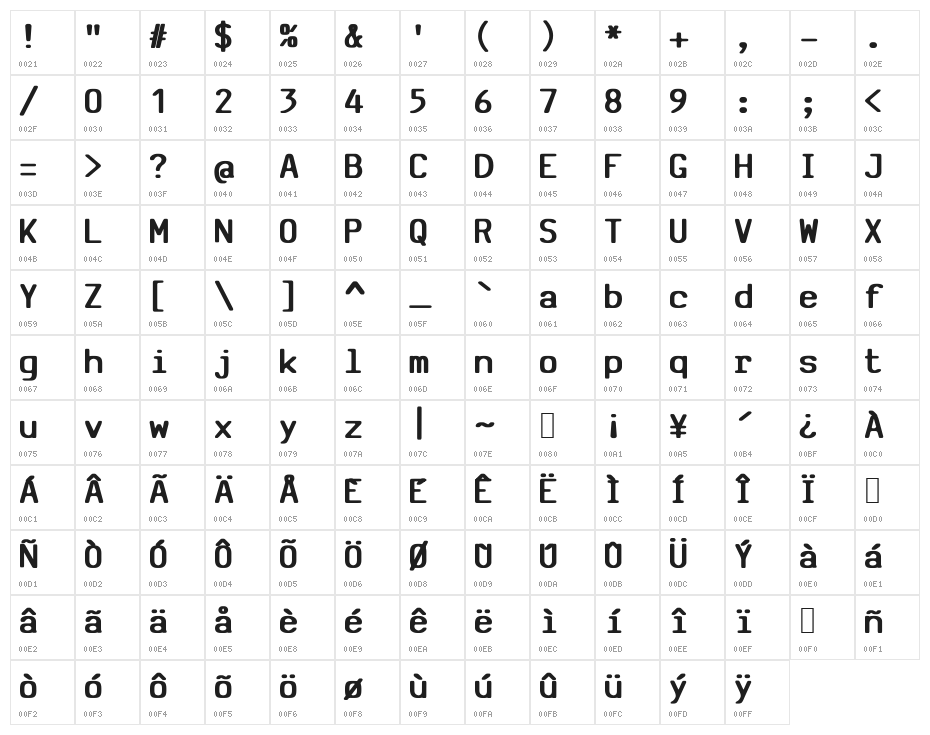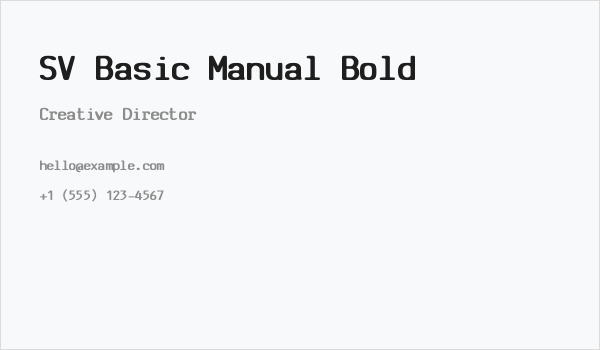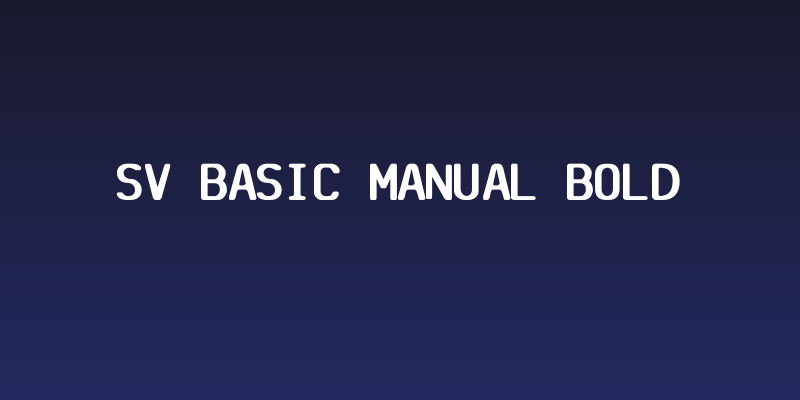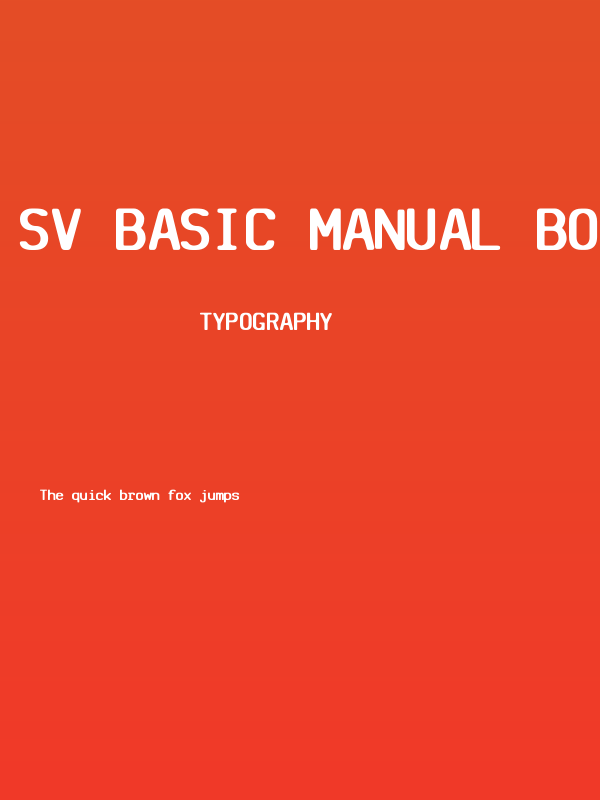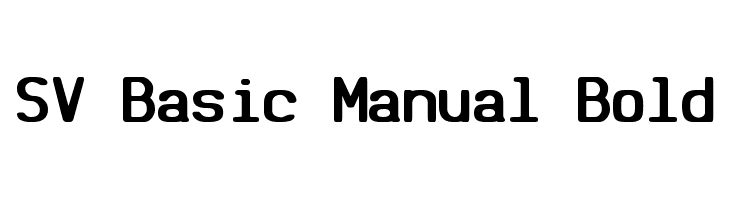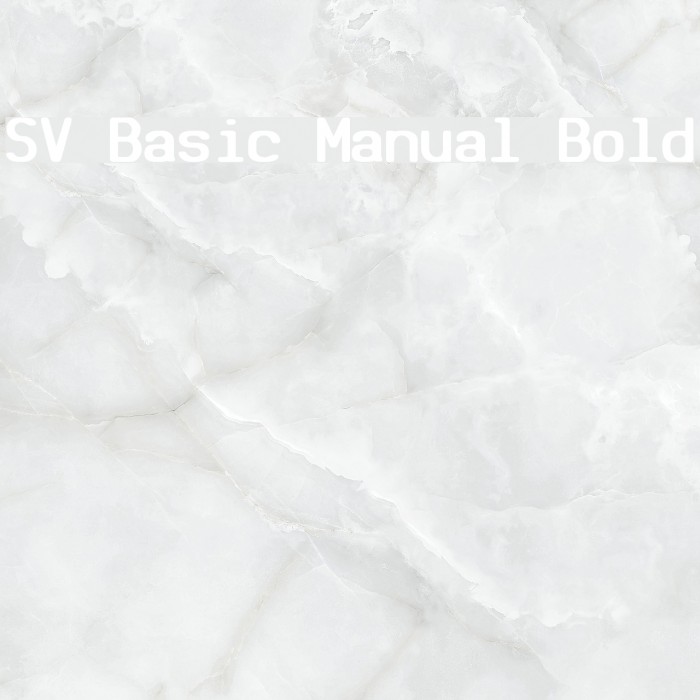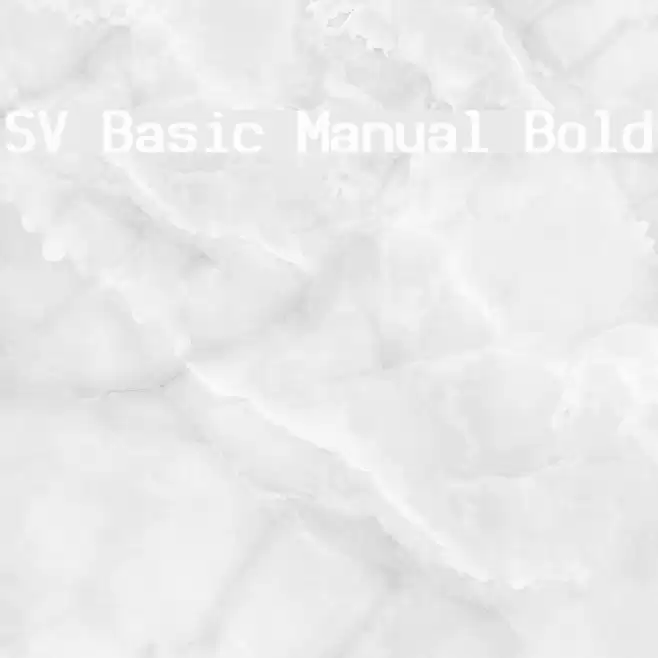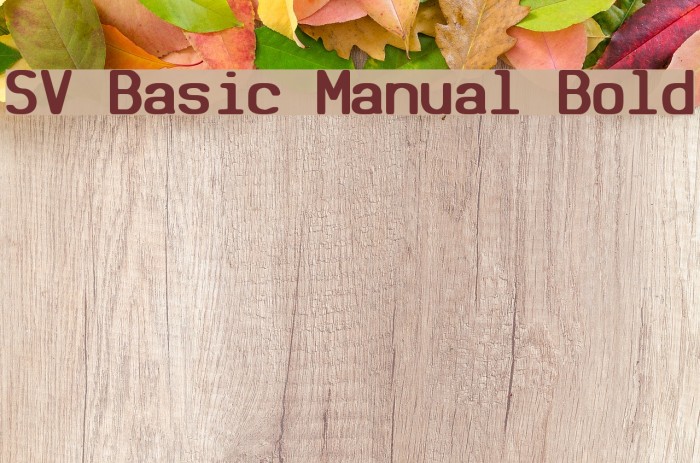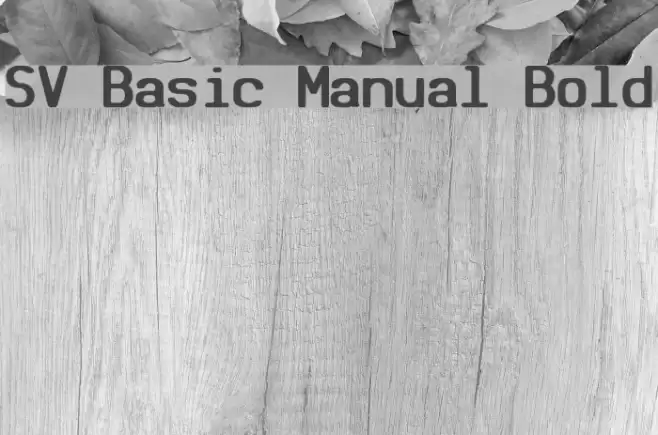
SV Basic Manual Bold Font
SV Basic Manual Bold Description
This font features a bold and rounded style, characterized by its thick strokes and smooth curves. The uppercase letters are uniform in height, providing a consistent and balanced appearance. The lowercase letters maintain a similar rounded aesthetic, with a slightly smaller size compared to the uppercase. Numbers are bold and clear, making them easily readable. Special characters are designed to match the overall rounded and bold style, ensuring a cohesive look across all elements. This font is versatile and can be used in various design contexts where a strong and friendly presence is desired.